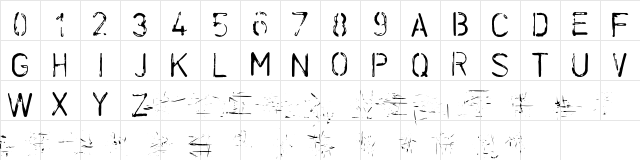
Complete AlliedEngine Greased glyph index. Displaying only characters natively supported by AlliedEngine Greased font.
AlliedEngine is a composed and adaptable typeface that performs quietly and consistently across a wide range of design contexts.